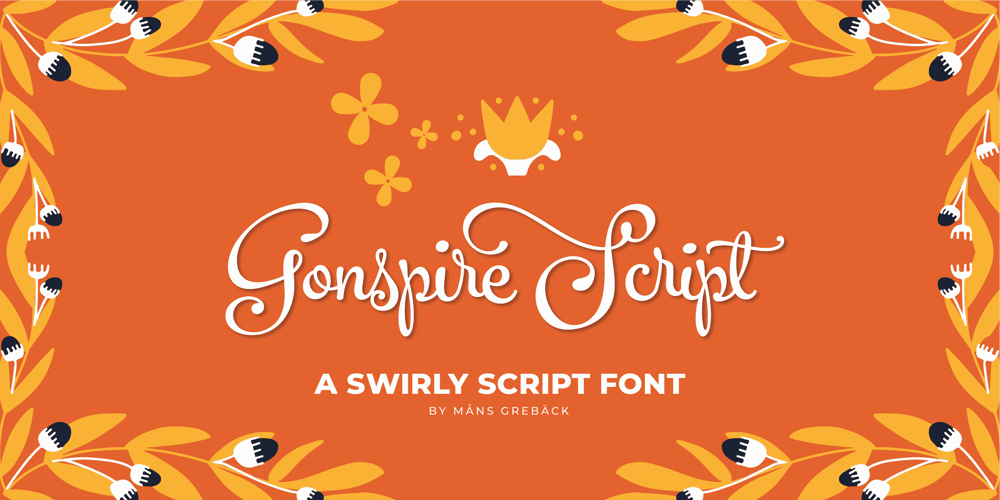
Gonspire Script
Gonspire Script font
Gonspire Script Font Family was designed by Måns Grebäck and published by Mans Greback. Gonspire Script contains 12 styles and family package options. Gonspire Script is a swirly and swashy typeface that radiates beauty. With elegant curves and swooshes, Gonspire Script is a decorative masterpiece for any creative project. Its lovely design is accentuated by intricate swashes and beautiful ornaments, making it an ideal choice for those looking to add a touch of elegance to their work. Use underscore _ anywhere in a word for swashes. Example: Love_rose Use multiple underscore for different swashes. Example: Wonder________woman